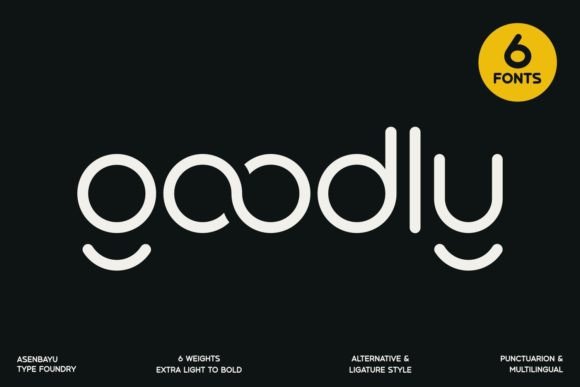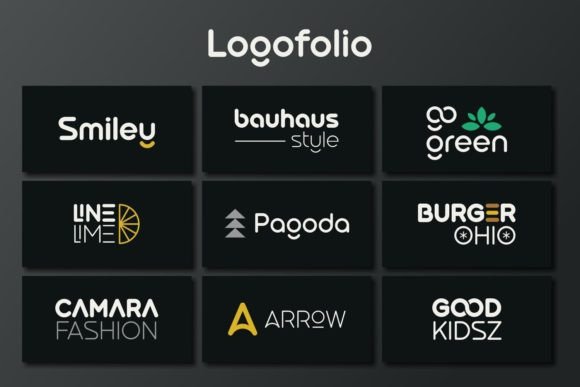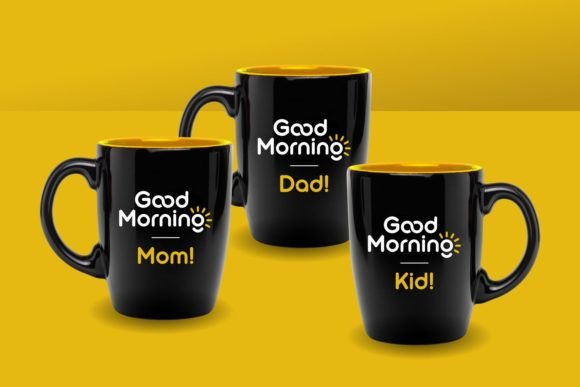
Goodly Font
Goodly is a modern rounded sans serif font family consisting of 6 weights. You can use it to convey the perfect design balance between modern and easygoing. Their round shape can create a friendly impression but they also appear professional. This font suits trendy packaging label designs, unique desired logos and branding, poster designs, fashion, and many more.